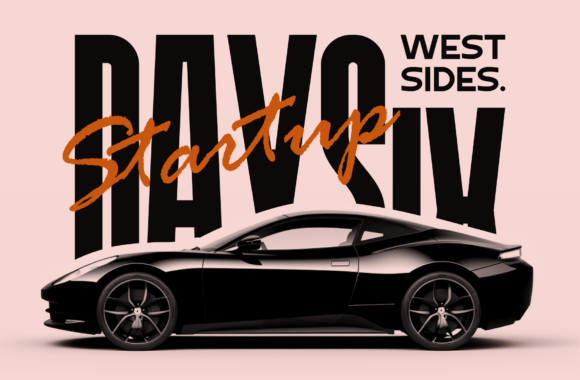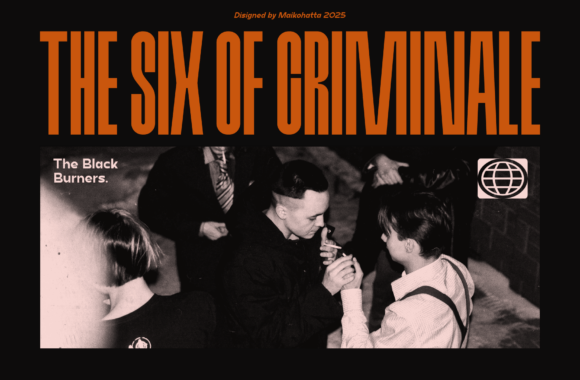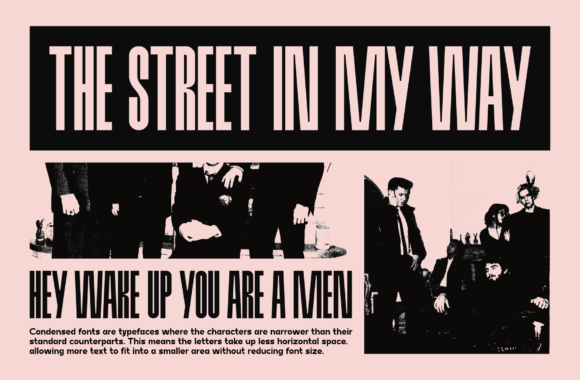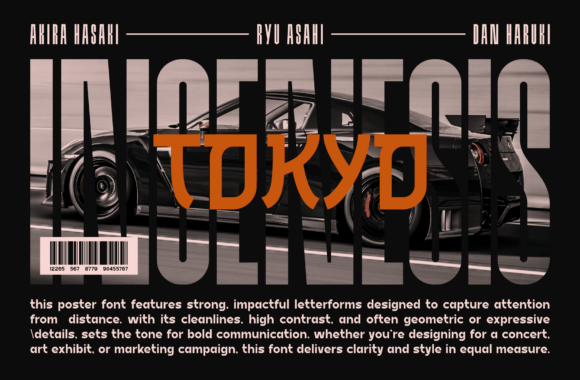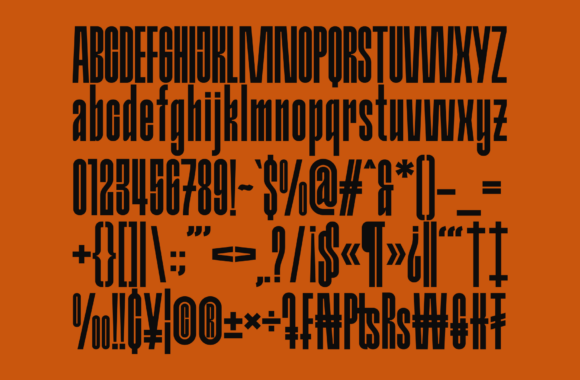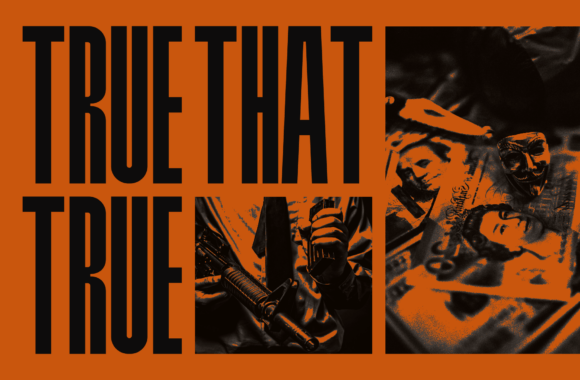
Introducing Gingerbone: The Ultimate Sans Serif Condensed Font for Designers and Crafters
In the world of typography, fonts play a crucial role in conveying messages, expressing emotions, and creating visual identities. For designers and crafters, finding the perfect font can make all the difference in their projects. That’s why we’re excited to introduce our new product, Gingerbone – a stunning Sans Serif Condensed font that’s sure to elevate your designs.
What is a Condensed Font?
Gingerbone is a type of font that is characterized by narrower or slimmer letterforms compared to regular or wide fonts. Condensed fonts are often used in various graphic designs, print materials, and other media because they have distinct advantages and unique characteristics. By using a condensed font, designers can fit more text into a smaller space, making it ideal for headlines, titles, and body text in designs where space is limited.
The Benefits of Using Condensed Fonts
So, why choose a condensed font like Gingerbone for your designs? Here are some benefits:
- Space-saving: Condensed fonts allow you to fit more text into a smaller space, making them perfect for designs where space is limited, such as brochures, posters, and business cards.
- Visual impact: The sleek and narrow letterforms of condensed fonts create a visually striking effect, making them ideal for headlines, titles, and emphasis text.
- Versatility: Condensed fonts can be used in a variety of design applications, from print materials to digital media, and can be easily paired with other fonts to create a unique visual identity.
Introducing Gingerbone: A Sans Serif Condensed Font
Gingerbone is a carefully crafted Sans Serif Condensed font that’s designed to provide a clean, modern, and sophisticated look to your designs. With its sleek and narrow letterforms, Gingerbone is perfect for designers and crafters who want to add a touch of elegance and sophistication to their projects.
Key Features of Gingerbone
Here are some key features that make Gingerbone a standout font:
- Clean and modern design: Gingerbone features a clean and modern sans serif design that’s perfect for a wide range of design applications.
- Narrow letterforms: The condensed design of Gingerbone allows you to fit more text into a smaller space, making it ideal for designs where space is limited.
- High legibility: Gingerbone is designed to be highly legible, even at small font sizes, making it perfect for body text and captions.
- Versatile: Gingerbone can be used in a variety of design applications, from print materials to digital media.
How to Use Gingerbone in Your Designs
Here are some ideas on how to use Gingerbone in your designs:
- Headlines and titles: Use Gingerbone as a headline or title font to add a touch of elegance and sophistication to your designs.
- Body text: Use Gingerbone as a body text font to create a clean and modern look in your designs.
- Captions: Use Gingerbone as a caption font to add a touch of sophistication to your images and graphics.
- Branding: Use Gingerbone as a brand font to create a unique and recognizable visual identity.
In conclusion, Gingerbone is a stunning Sans Serif Condensed font that’s perfect for designers and crafters who want to add a touch of elegance and sophistication to their designs. With its clean and modern design, narrow letterforms, and high legibility, Gingerbone is a versatile font that can be used in a wide range of design applications. Try Gingerbone today and take your designs to the next level!